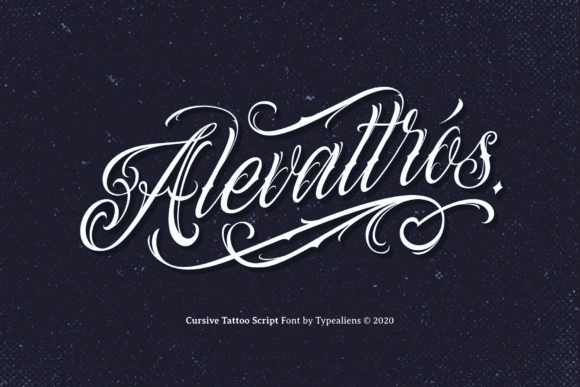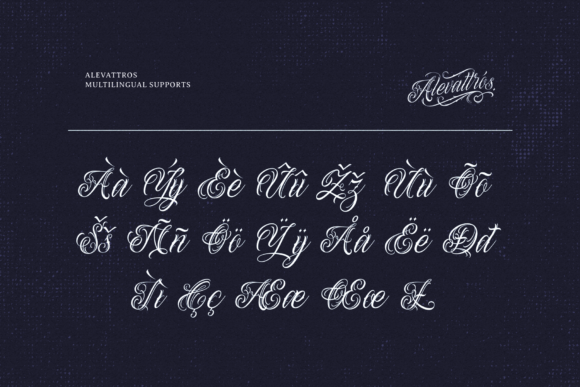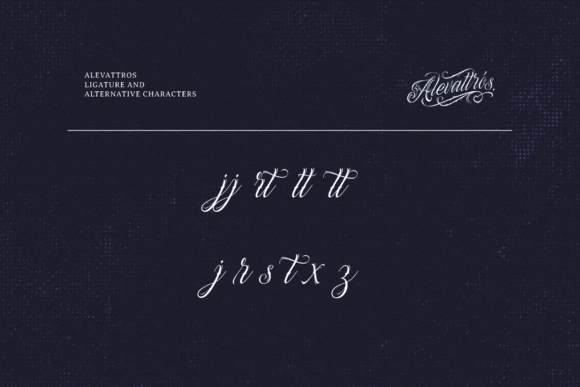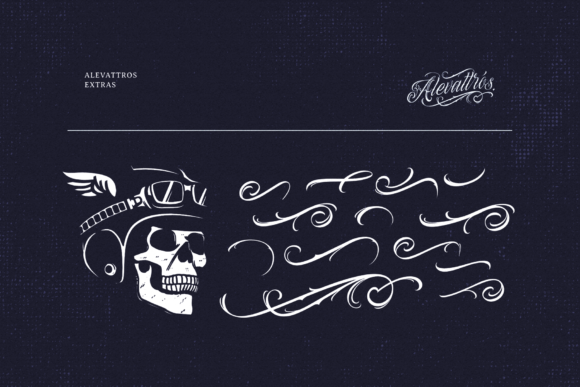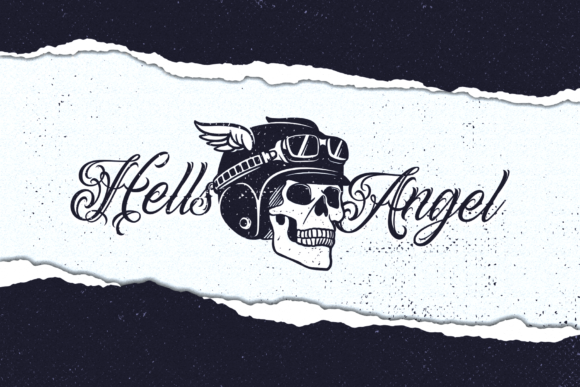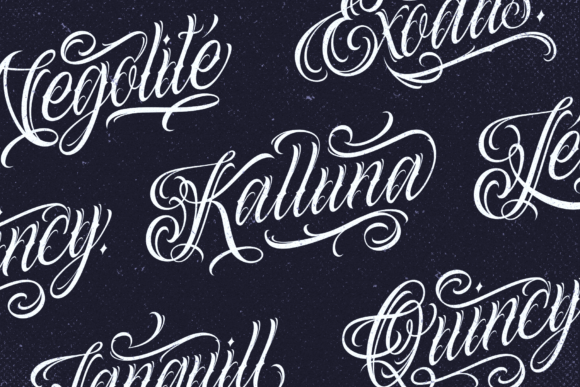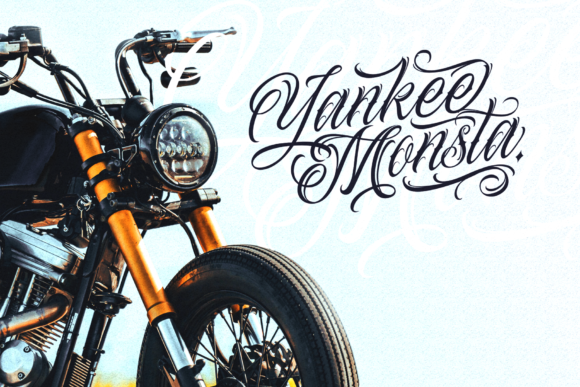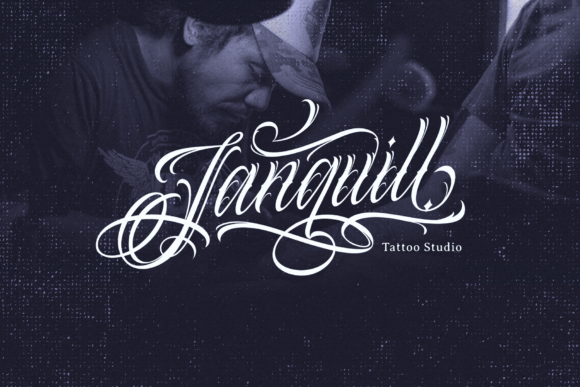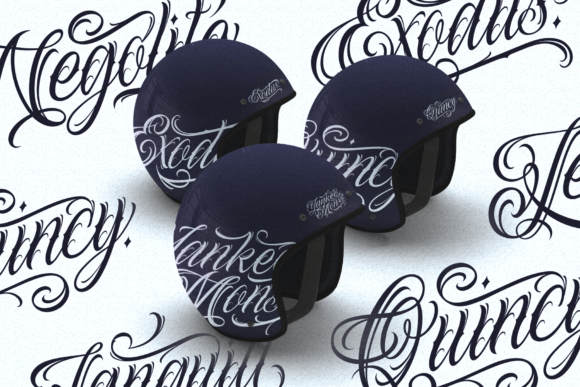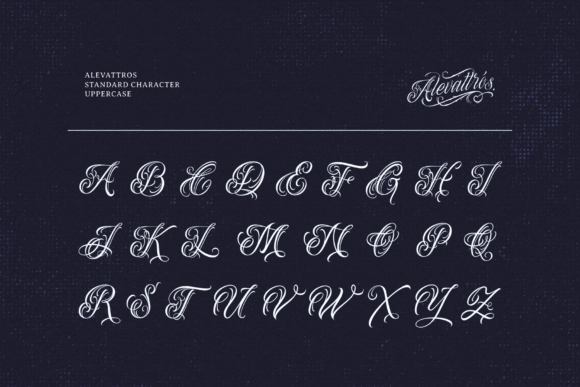
HomeScript FontsAlevattros Font Script Fonts Alevattros Font FacebookXPinterestWhatsApp Alevattros Font Poster 2 Alevattros Font Poster 3 Alevattros Font Poster 4 Alevattros Font Poster 5 Alevattros Font Poster 6 Alevattros Font Poster 7 Alevattros Font Poster 8 Alevattros Font Poster 9 Alevattros Font Poster 10 Alevattros Font Poster 11 Alevattros Font Poster 12 About Alevattros Font Alevattros is inspired by the iconic look of tattoos, and will turn any design idea into a true piece of art! DOWNLOAD ON CREATIVE FABRICAThis font is sold and delivered by Creative Fabrica. Font Canyon may earn a commission if you buy through this link. People also explored Beastic Font Melon Font Love Today Font Dakota Magic Font Cheesyfloat Script Font Lovely Letters Font Summertime Font Love Conchetta Font Abigail Valentine Monogram Font 304 0 TagsAlevattros Font Previous articleHanahelia FontNext articleAnhattan Font LEAVE A REPLY Cancel reply Comment: Please enter your comment! Name:* Please enter your name here Email:* You have entered an incorrect email address! Please enter your email address here Website: Save my name, email, and website in this browser for the next time I comment. Personal Use Free Zero Panzer Personal Use Free Read more about this font Sheiloria Personal Use Free Read more about this font Squealer Personal Use Free Read more about this font Autines Personal Use Free Read more about this font BLOG Free vs Paid Fonts: Why Investing in Premium Fonts Is Worth It Free vs Paid Fonts: Why Premium Fonts Are Worth It in 2025 The debate of free vs paid fonts continues in the design world. While... To increase your work productivity, choose the most readable fonts. Where to Buy American Fonts Online in 2024 Using Fonts in Digital Marketing: Tips to Strengthen Your Brand Identity